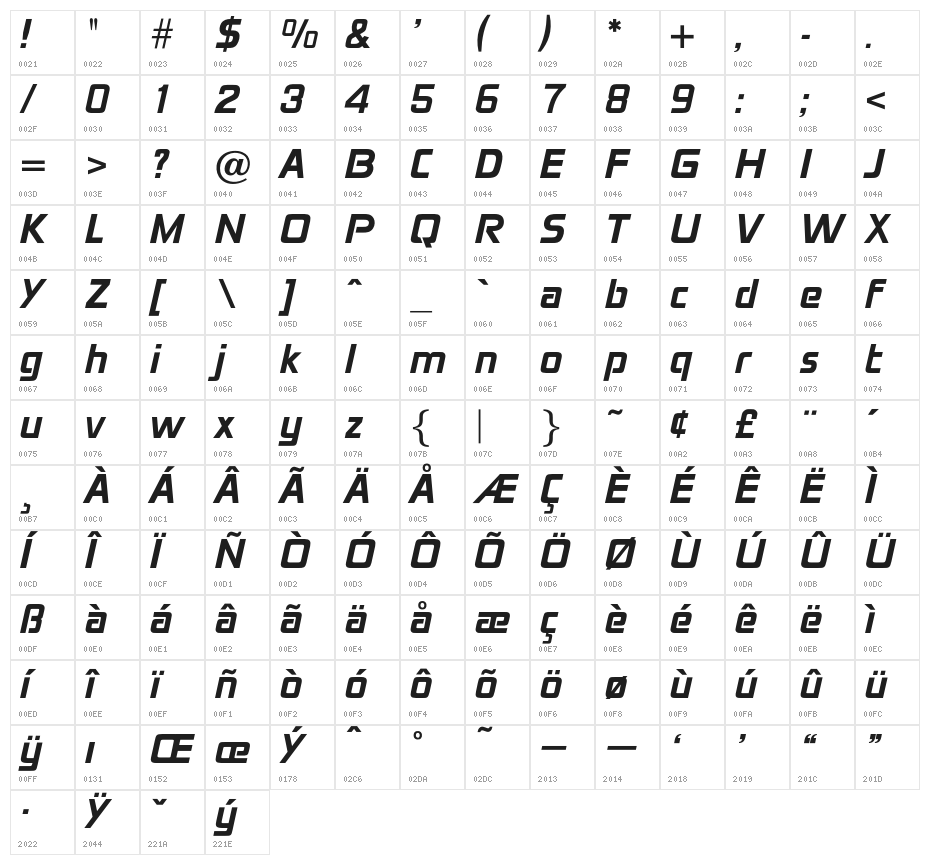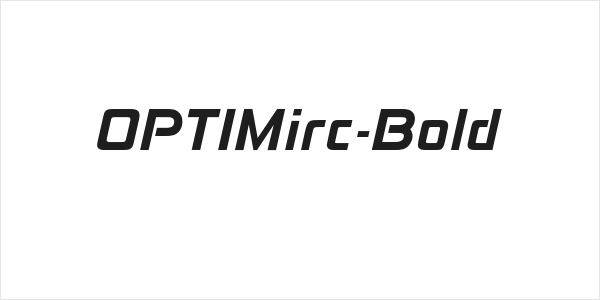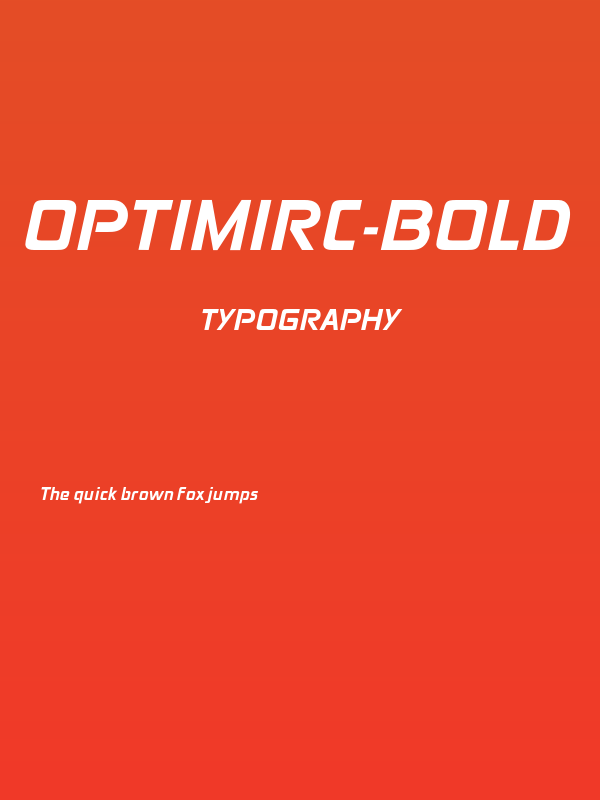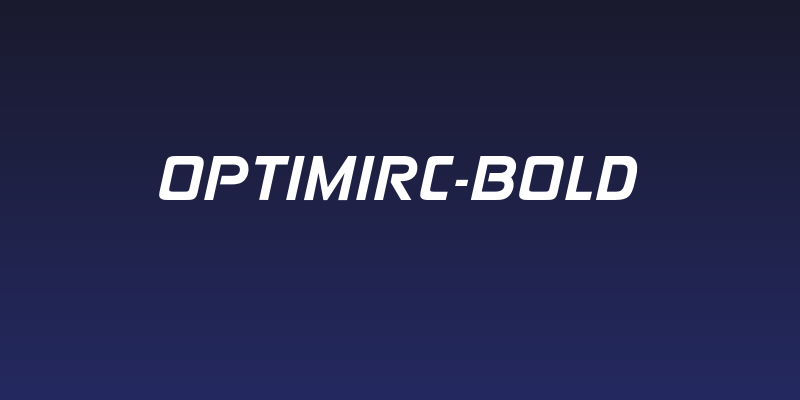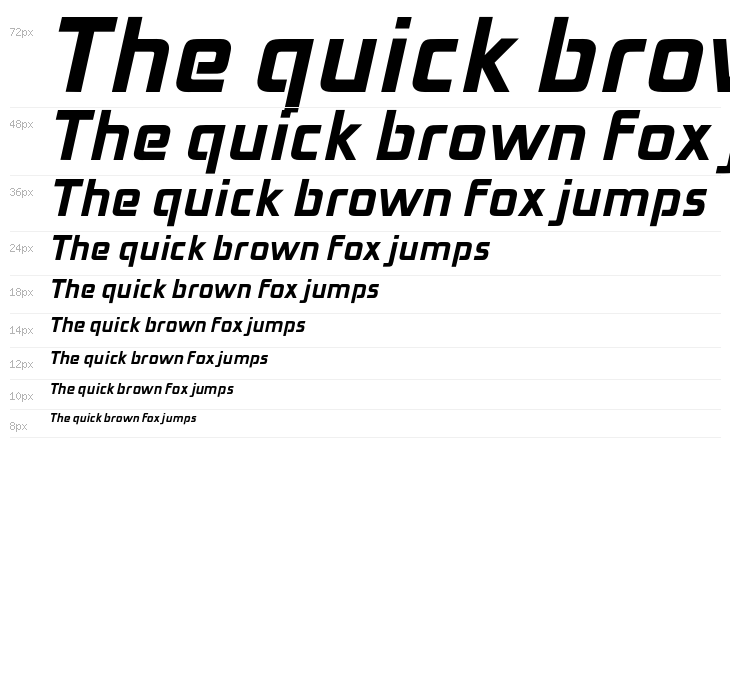
OPTIMirc-Bold Font
OPTIMirc-Bold Description
This font features a bold, modern design with a slight italic slant, giving it a dynamic and forward-moving appearance. The characters are clean and geometric, with consistent stroke widths that provide a uniform look. The uppercase letters are slightly taller than the lowercase, maintaining a balanced proportion. The numerals are clear and distinct, making them easily readable. Special characters are well-defined, complementing the overall style. The font's sleek and contemporary aesthetic makes it suitable for a variety of design applications.
| Use Case | Headlines, Logos, Advertising |
| Proposed Projects | Ideal for branding, advertising, sports team logos, and modern web design. |